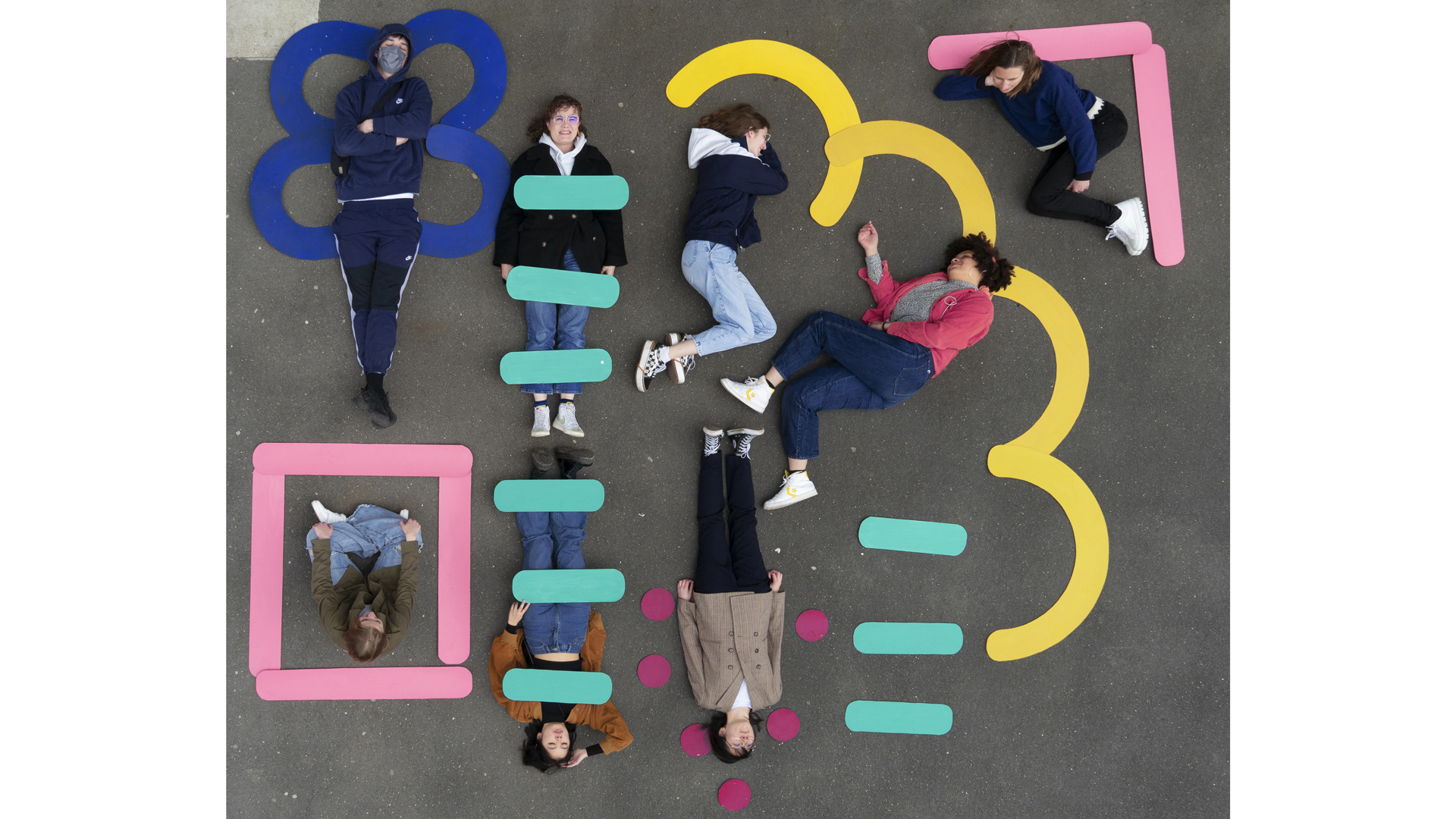
Q&A Atelier Baudelaire
It seemed interesting to us to make you discover the profiles of our guests. Discover Atelier Baudelaire‘s interview.
Biography Camille Baudelaire and Olivia Grandperrin led a research and creative studio — Atelier Baudelaire, linking graphic design and volume, culture and innovation. The studio works with institutions, artists, and businesses in creating custom identities, editions, signage, objects, and spaces. Atelier Baudelaire pushes traditional boundaries within graphic design delivering excellence and commitment, while offering an innovative and flexible model: it values the work of female designers, promotes interdisciplinary practices and collective intelligence.
Interview
Describe your typical day?
Our day starts quite early, after dropping our daughters off at school. We are trying to start our day by taking stock of the distribution of tasks and progress on projects. We have learned to adapt to the priorities of the day with very dense working times, and more moments of relaxation, exchange and discussion. We finish between 16:30. (once a week), 18:00, and later when our companions are out of school, it is variable geometry.
We start our days with a half-hour walk (8:45 to 9:30) along the Canal Saint Martin to get to the office, which is very pleasant. It is an appreciable moment, as we’re disconnected from phones and emails. We take the opportunity to sort out the things to do, note the important ideas that came to us between emergencies from the day before...
Have your work habits changed notably after the lockdown?
We partnered the time of the first Covid lockdown. So we immediately got into the habit of working remotely, and exchanging a lot by whatsapp, or by phone. Sometimes we like to work from home wearing comfortable clothing, without children, but these moments are rare. A closed room for an office at home seems to be a luxury in Paris. It’s not for now!
Favourite kind of music to listen to while working?
Some phases of work require concentration so we rather work in silence most of the time. We also listen to a lot of podcasts on many different topics.
Do you read news?
We subscribe to several Instagram accounts specialized in design, Art, visual culture, political news and feminism that are good relays to magazines, quality newspapers, and in-depth articles. We prefer to spend time on certain targeted topics than on often anxious and caricatural daily news.
“We strongly believe in collective intelligence and we practice creative ‘ping pong’ on a daily basis.”
– Atelier Baudelaire
What do you do to evade yourself from work?
Camille A lot of manual activities with my daughter, including gardening. I try to go to at least one dance class a week. For 2 years it’s been tango, but I’ve done many different types of dances in the last 10 years.
Olivia My daughter is still small so I admit that my leisure time is quite reduced. But I’ve been running again for some time, a sports practice that gives me time to think.
What is the best way to work? In a team, alone?
As a team of course! We strongly believe in collective intelligence and we practice creative ”ping pong” on a daily basis, first between us and then by integrating one of our recurring collaborators into the creative process very early.
Do you ever feel "too comfortable" in your work?
At the moment it’s not happening. We have the feeling of always being on the move. Camille: If I have the feeling of being bored, I personally have a reflex that consists of engaging in a new activity such as the rubik’s cube, reading an unexpected book, or changing daily routines. This attitude constantly recreates neural paths and allows you to get out of any form of repetition or boredom on a daily basis. I have as many projects in mind as I have available moments in reality.
What do you think of the never ending trend of grotesque and geometric sans-serif typefaces?
We work with both styles of typefaces, that’s what’s interesting. Our work subjects are often at the crossroads of culture and research, which lends itself well to serif typefaces with innovative twist. If we use a sans serif, we look for the ones with personality, who reflect the style of its author. We do not necessarily seek to get all our projects into the dominant visual trend. We think that there are two currents, which can also sometimes meet: a slightly retro trend towards the grotesques and geometrics sans inherited from the Swiss School and the Bauhaus, and a more organic trend with more rugged fonts, which bring strangeness. We are often attracted to fonts with generous x-height, to allow a contrasting text density.
What are some things that grab your eye the most when you are searching new typefaces?
We are doing a permanent watch. Everything interests us, until it has an innovative character. We work with Eugénie Bidaut, a type designer, specialized in “inclusive typography”, with Alexandre Bassi, or Alice Savoie, a teacher at ANRT and Écal. Anne-Lise Bachelier, Lenny Hudson and Clément Frassi, talented graphic designers and regular collaborators of the Atelier, is also permanently monitoring trends.